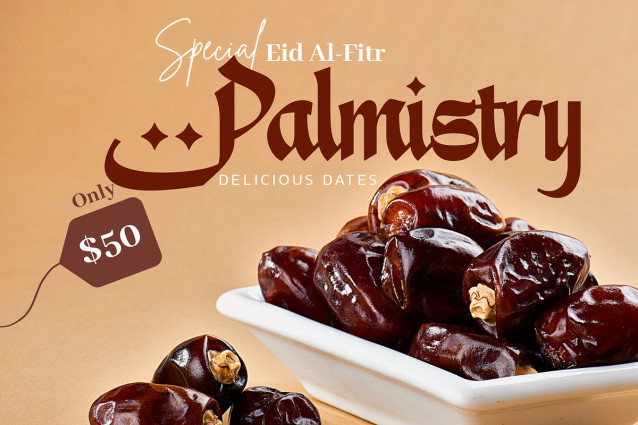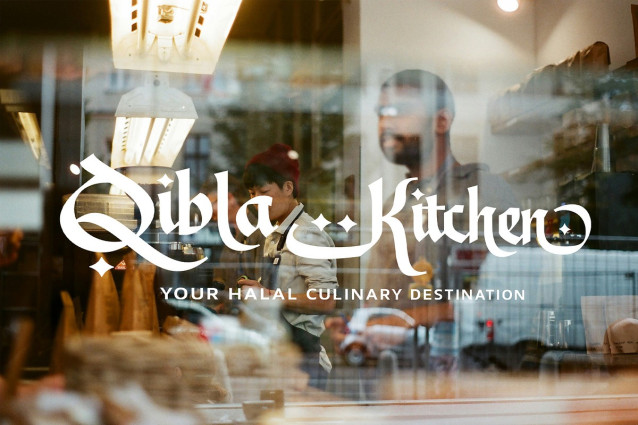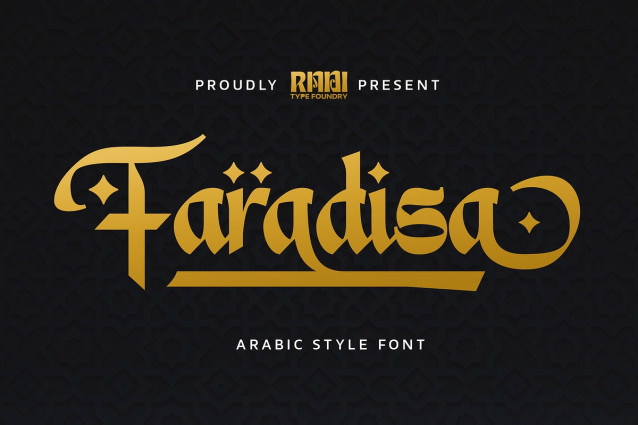
Faradisa Font
Faradisa Font is a premium Arabic-style font designed to bring a touch of tradition and elegance to your projects. Inspired by the beauty of Arabic calligraphy, this font blends intricate details with modern versatility, making it perfect for: Branding and Logo Design Packaging and Product Labels Wedding Invitations Social Media Graphics Luxury-themed Projects And Many More